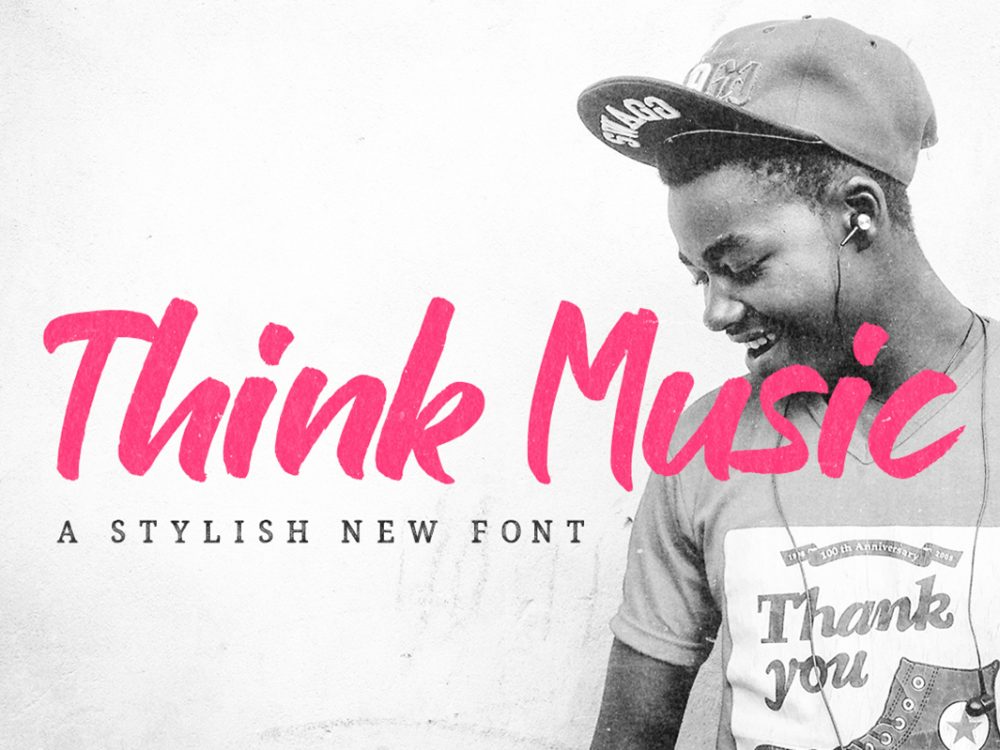
Think Music Script Free Font
Think Music Script Free Font is an interesting, modern typeface that mimics writing with a brush and features an elegant calligraphic style. This font is very suitable for creating various projects that require a script font. You can use this font to create memorable posters, wedding invitations, greeting cards, branding, flyers, t-shirt and pillow prints, and more. If you like it don’t forget to check out the full version.